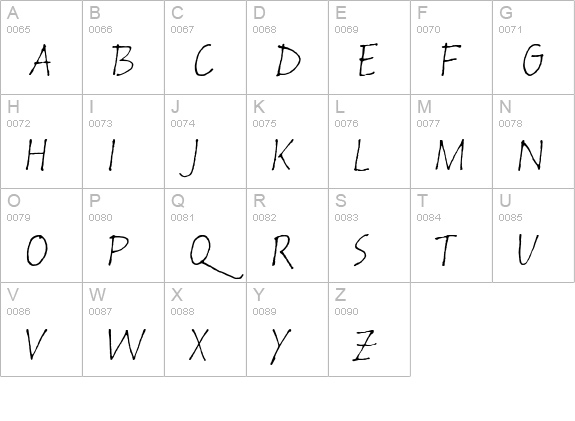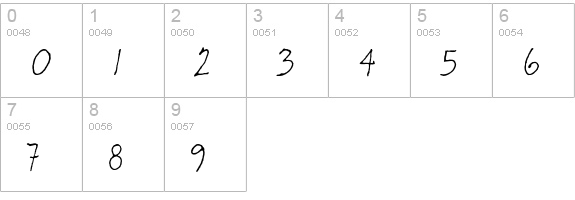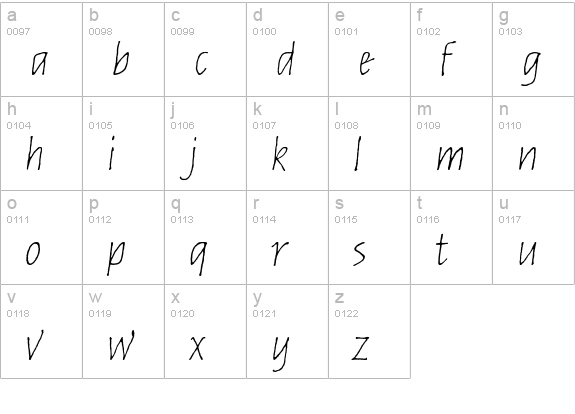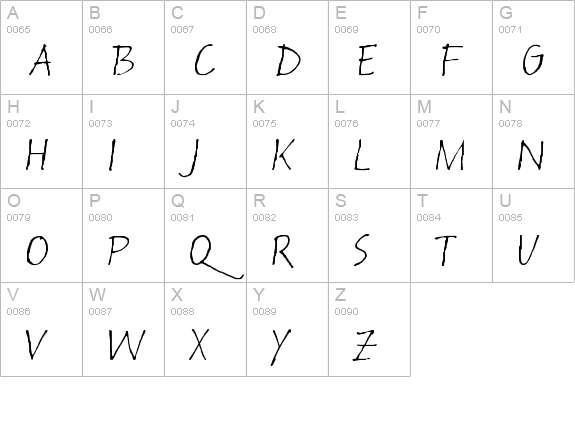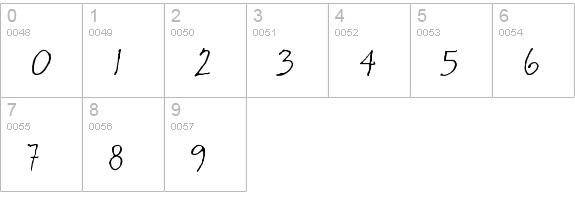
Russell Oblique Std Informal Font Details
Russell Oblique Std Informal is a distinctive, italic variant in the Russell typeface family \xE2\x80\x94 well suited to design and typography projects.
Russell Oblique Std Informal font is a charming and versatile typeface that exudes a sense of casual elegance. Its slanted and slightly quirky design adds a playful touch to any project, making it perfect for a variety of creative endeavors. With its unique personality and modern appeal, this font is sure to stand out and make a statement. And the best part? Russell Oblique Std Informal font is available for free download at FontsMarket.com, making it easily accessible for anyone looking to add a touch of creativity to their designs. Don't miss out on the opportunity to enhance your projects with this stylish and contemporary font – download it today and let your creativity soar!